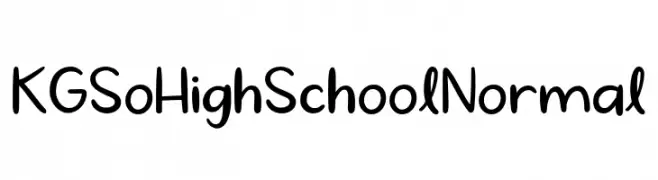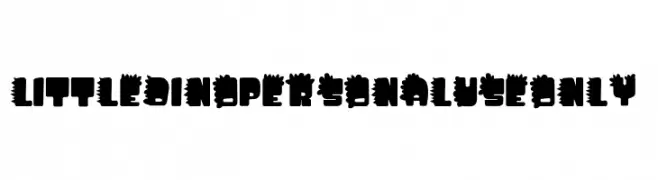
( Fonts by Kong Font )
A playful, dinosaur-themed font with bold, cartoonish characters.
( Fonts by Kimberly Geswein )
A playful, handwritten font with rounded, smooth letterforms.
( Fonts by Cikareotype Studio )
A bold, graffiti-inspired font with a playful, inflated appearance and shadow effect.
( Fonts by Scratchones )
A playful and dynamic handwritten font with fluid strokes.
Bold, graffiti-style hand-drawn display font.
( Fonts by Qkila )
Bold, graffiti-style display font with thick outlines and drop shadows.
( Fonts by Fitrah Type )
Bold, extruded graffiti-style font with a 3D effect.
( Fonts by Fitrah Type )
Bold graffiti-style display font with angular, energetic forms.